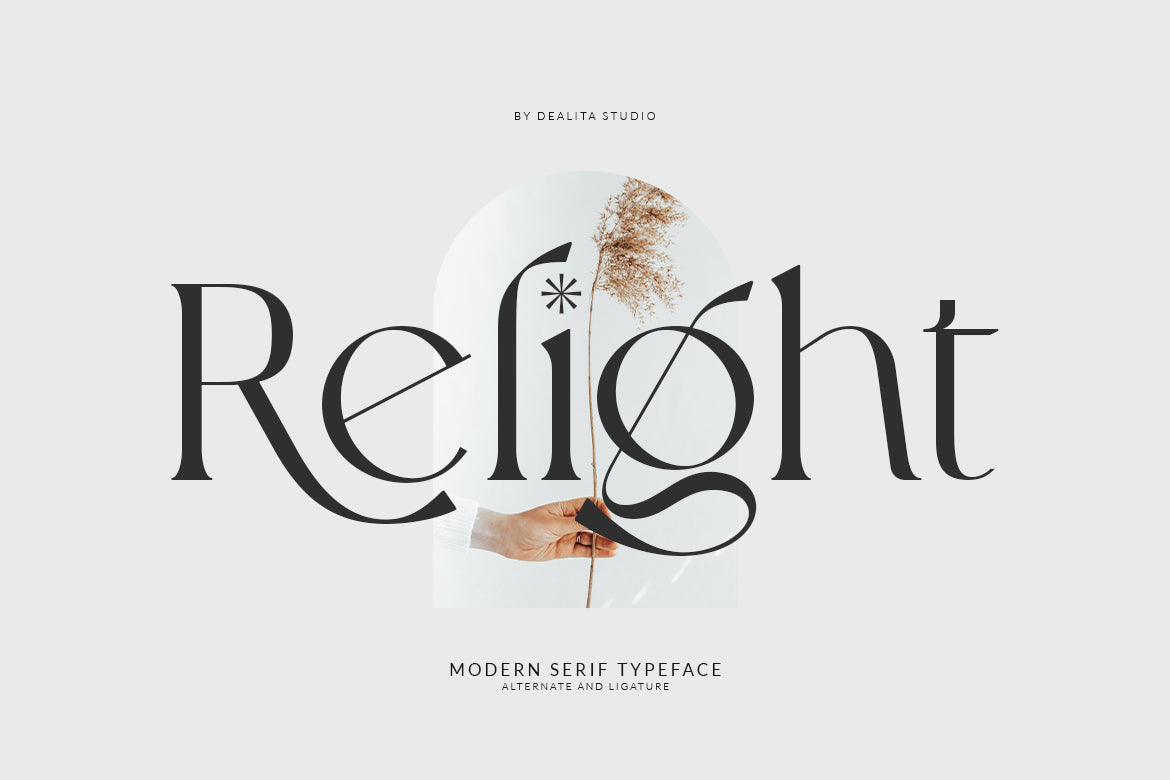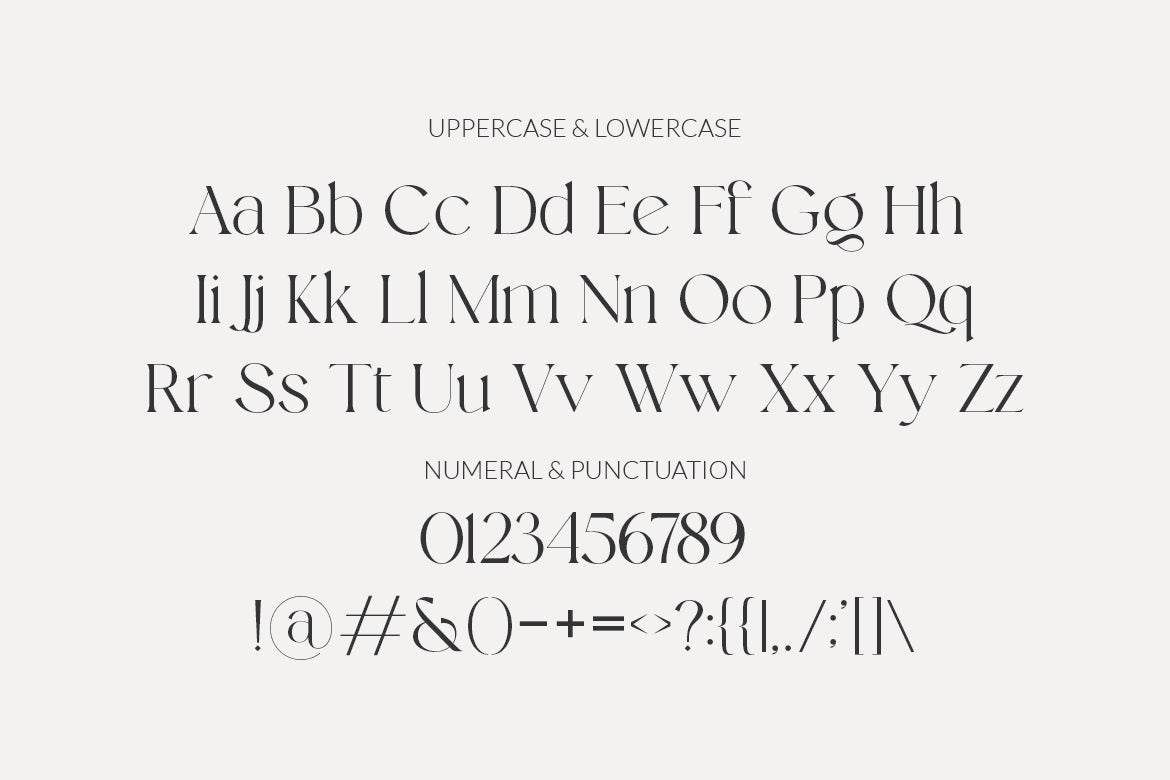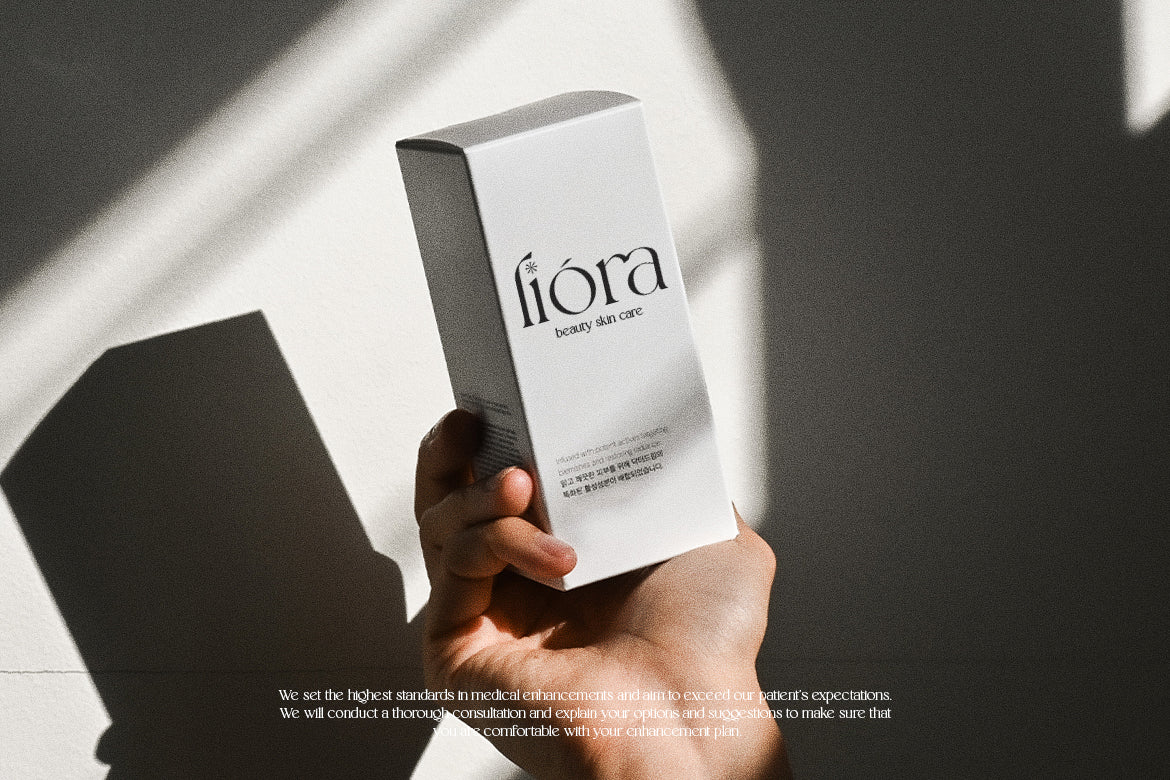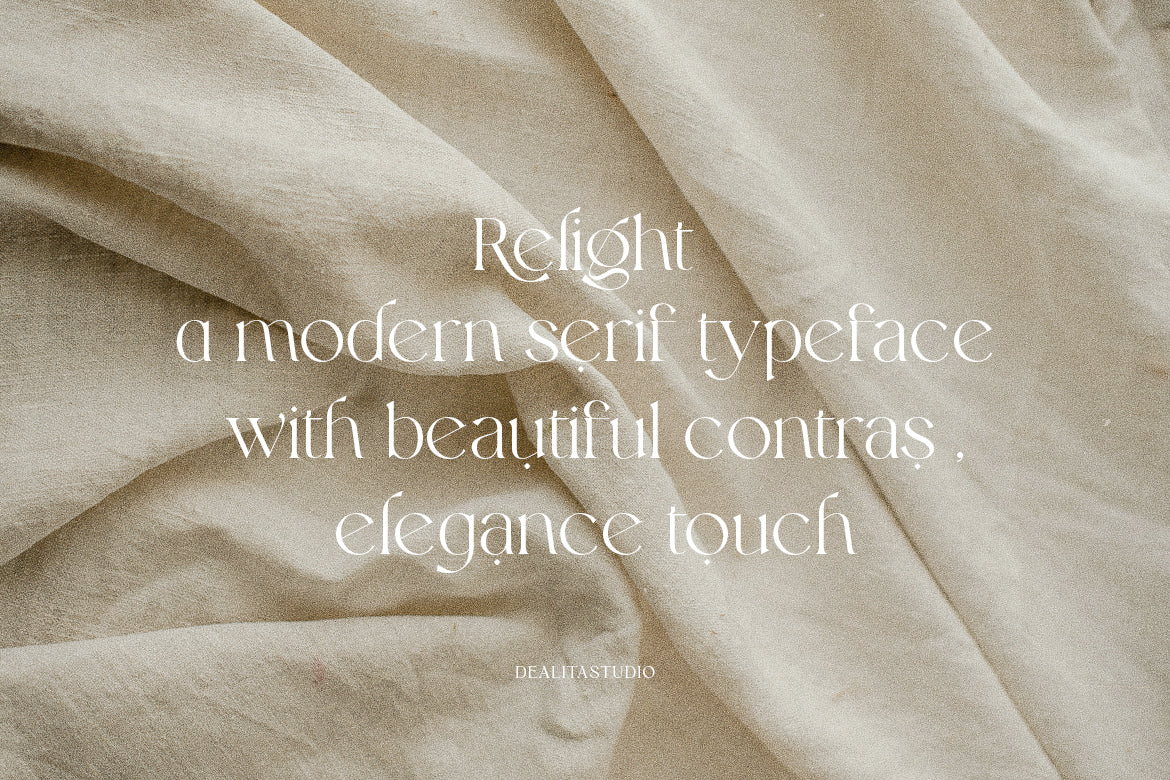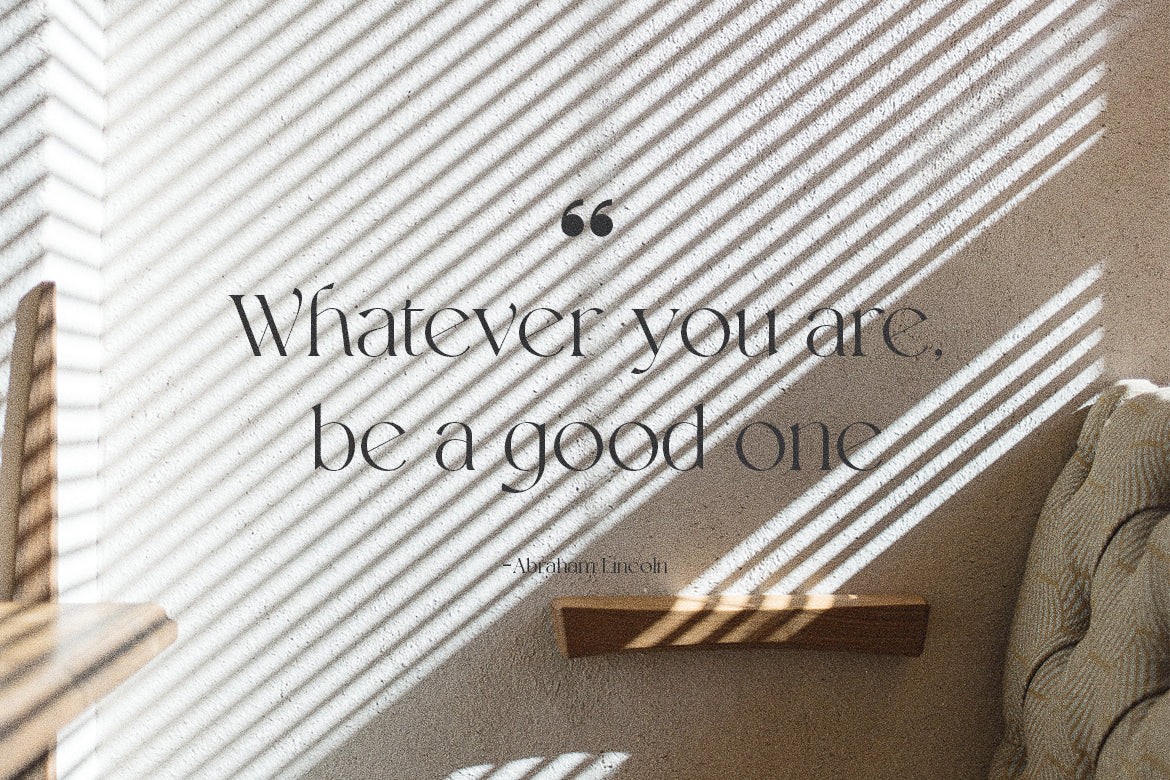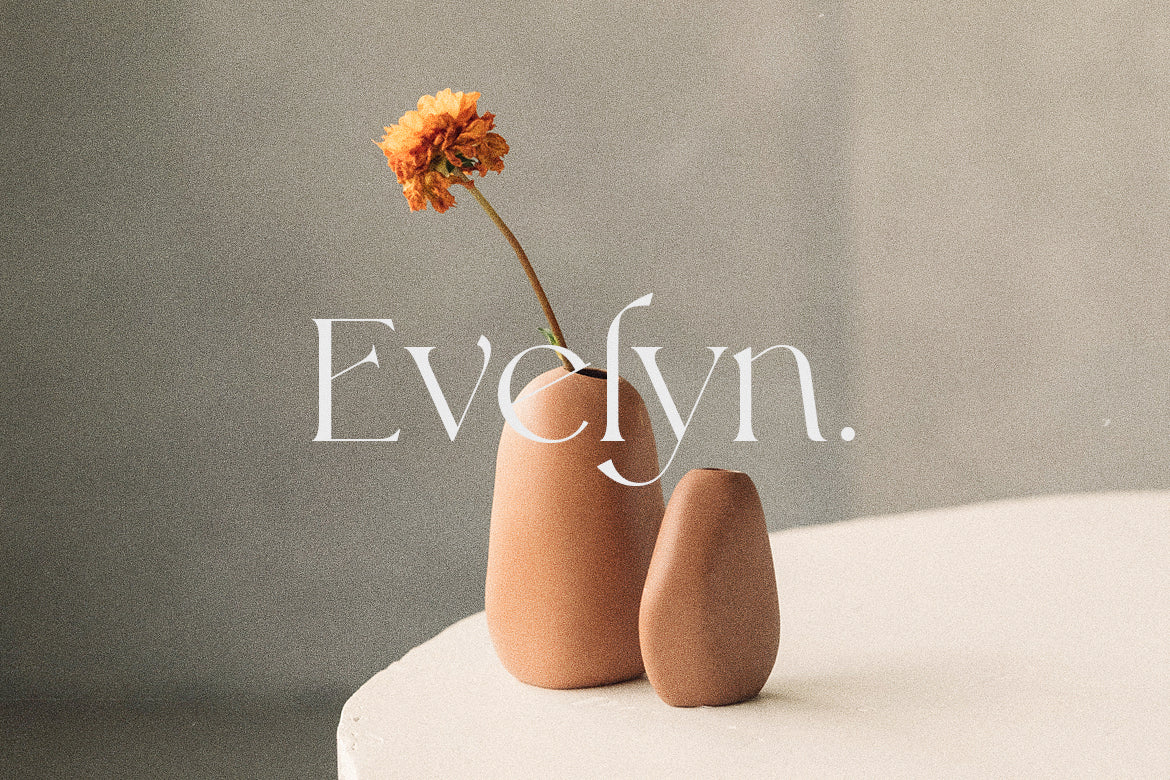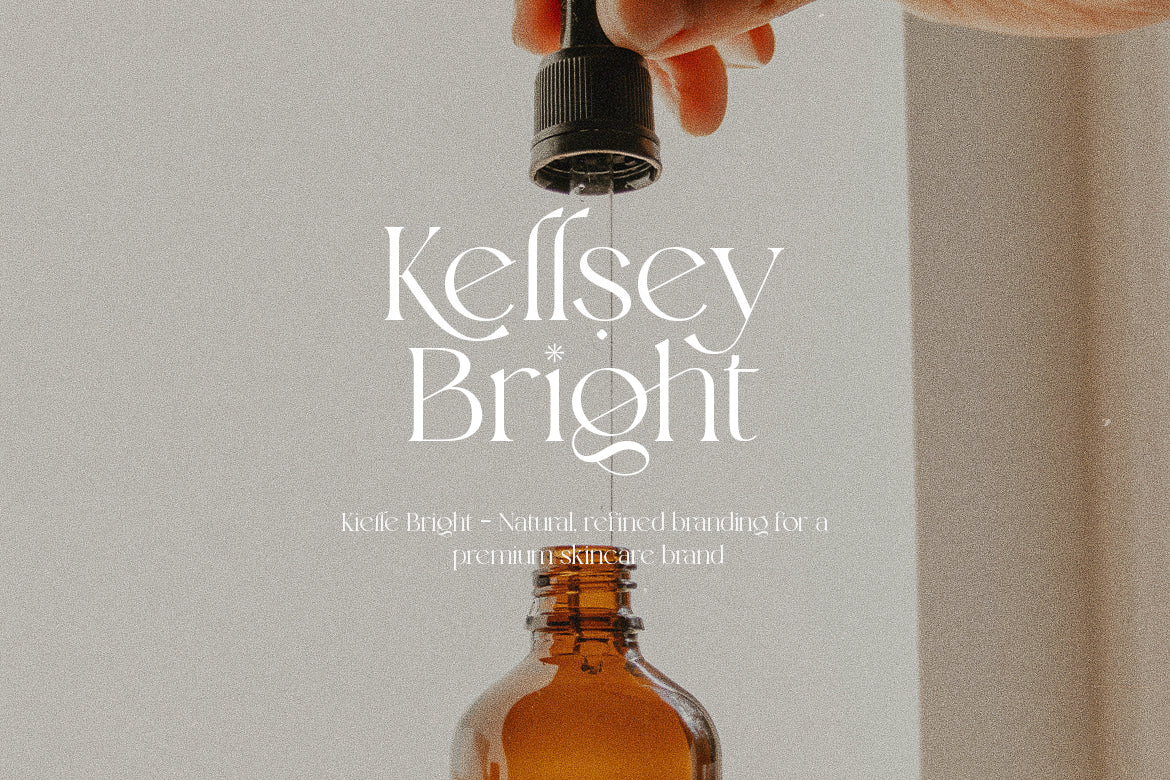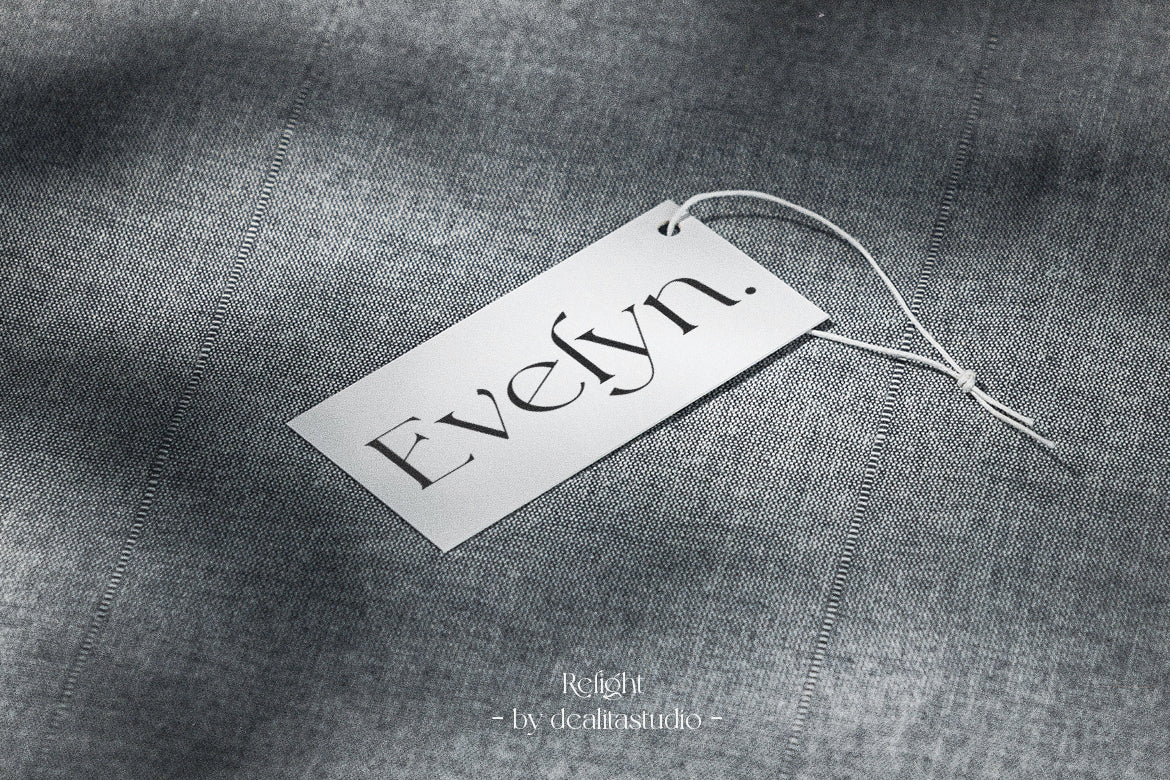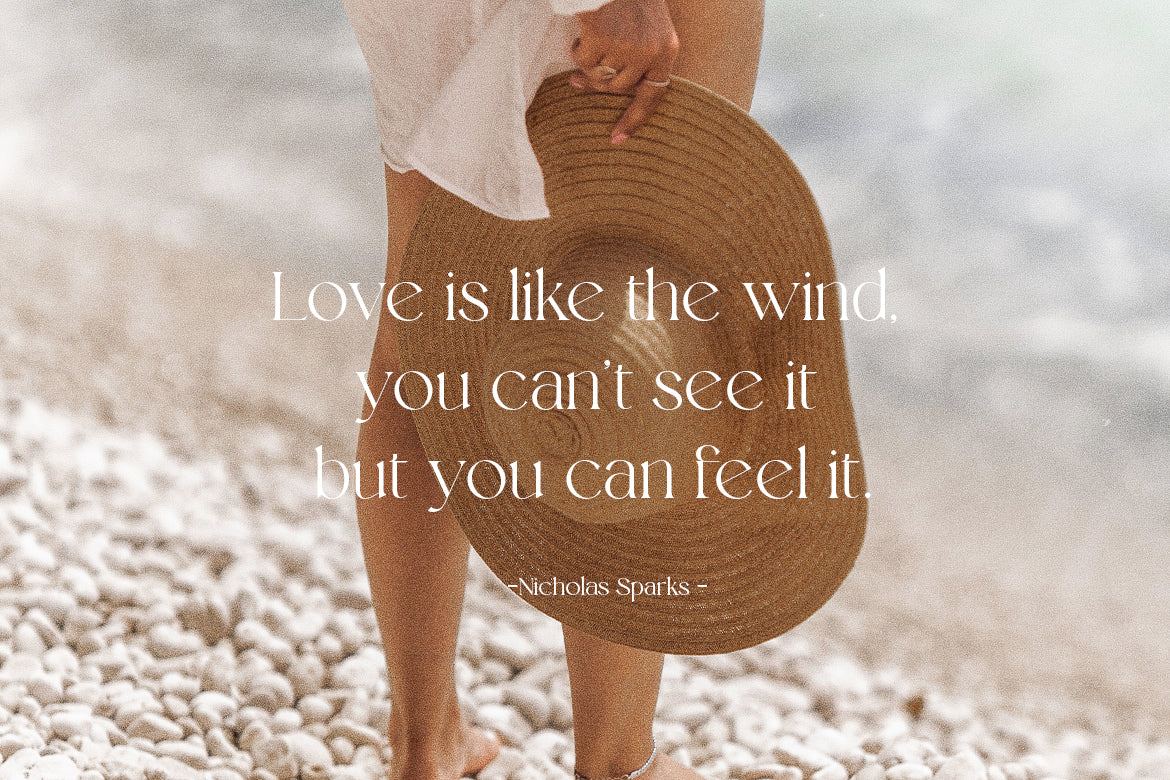
Relight by dealita studio is a minimalist modern serif font designed for clarity, elegance, and timeless appeal. With its clean lines, balanced contrast, and understated structure, Relight is perfect for branding, editorial design, and digital projects that value simplicity and sophistication.
Ideal for fashion labels, lifestyle brands, packaging, and professional publications, Relight brings a refined touch without overwhelming the design. Its neutral elegance makes it ideal for logos, headlines, website typography, and print materials where readability meets style.
Key features:
• Clean, minimalist serif design with balanced contrast
Relight pairs beautifully with modern sans-serifs or subtle scripts for a contemporary, curated look. Use it to create elegant designs for:
• Fashion and lifestyle branding
• Minimalist packaging and product labels
• Editorial layouts and magazine headlines
• Website typography and social media content
• Professional presentations and print design
Whether you’re building a quiet luxury brand or crafting a clean editorial identity, Relight delivers the precision and elegance your project deserves.
Illuminate the essentials — with Relight, the modern serif font built for clarity and calm confidence.